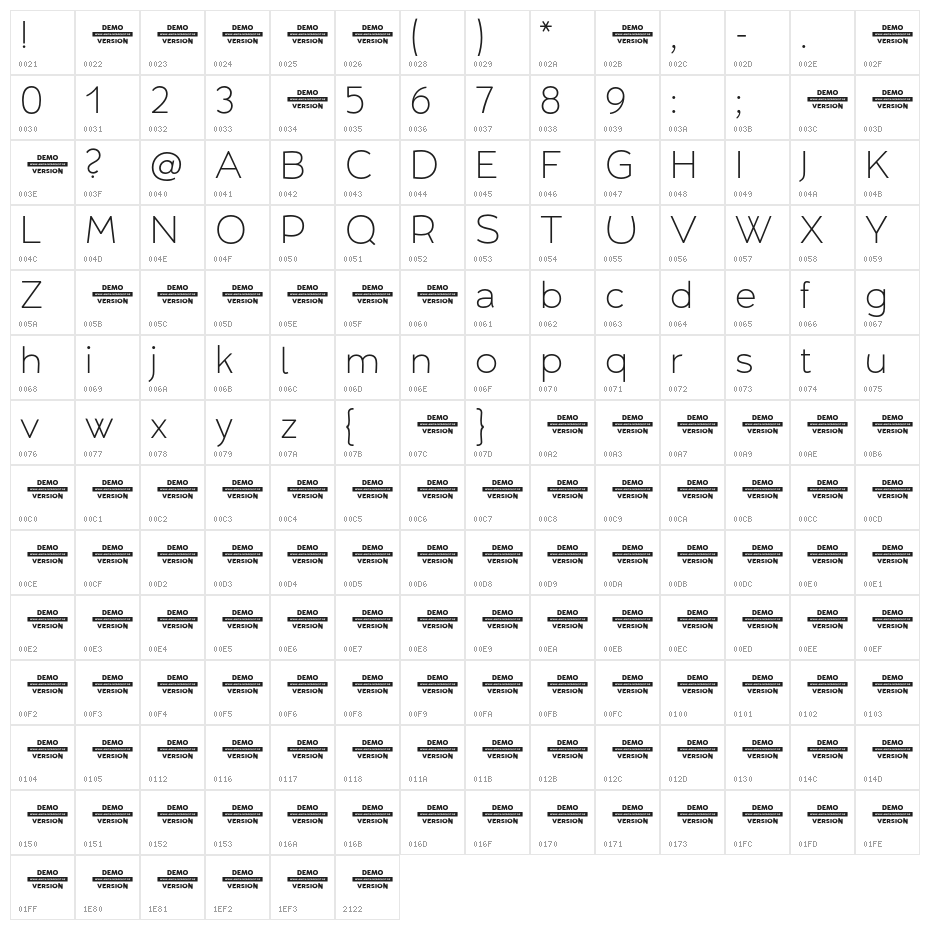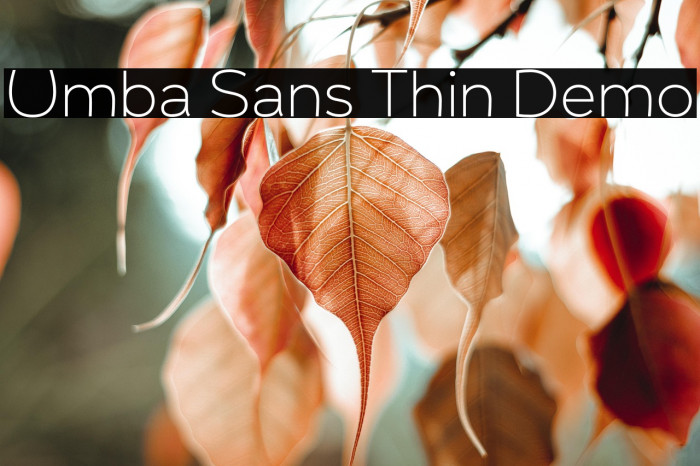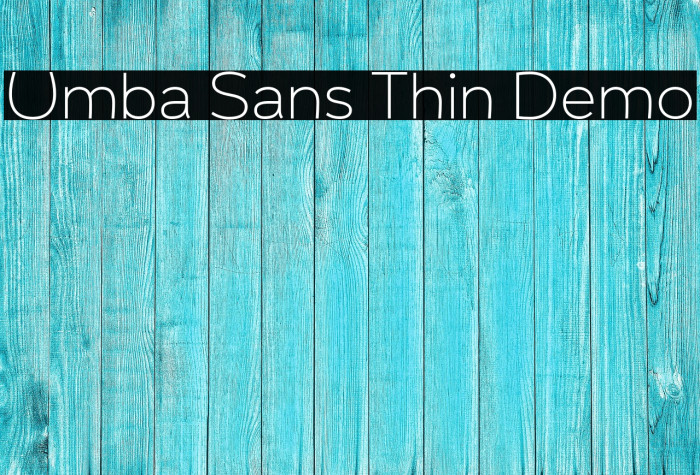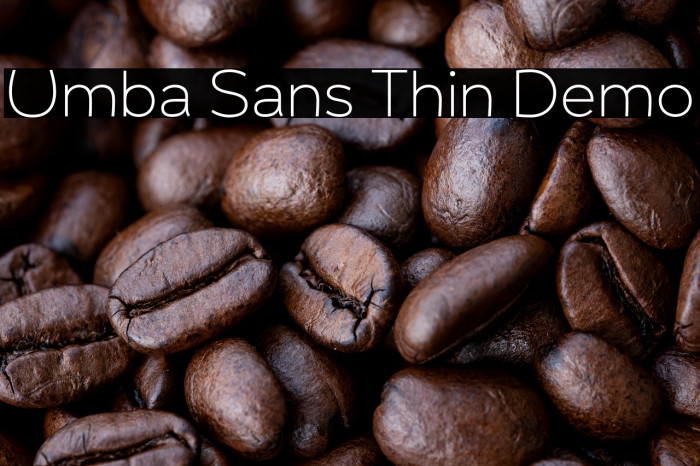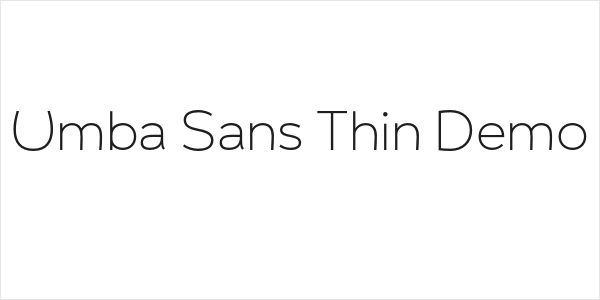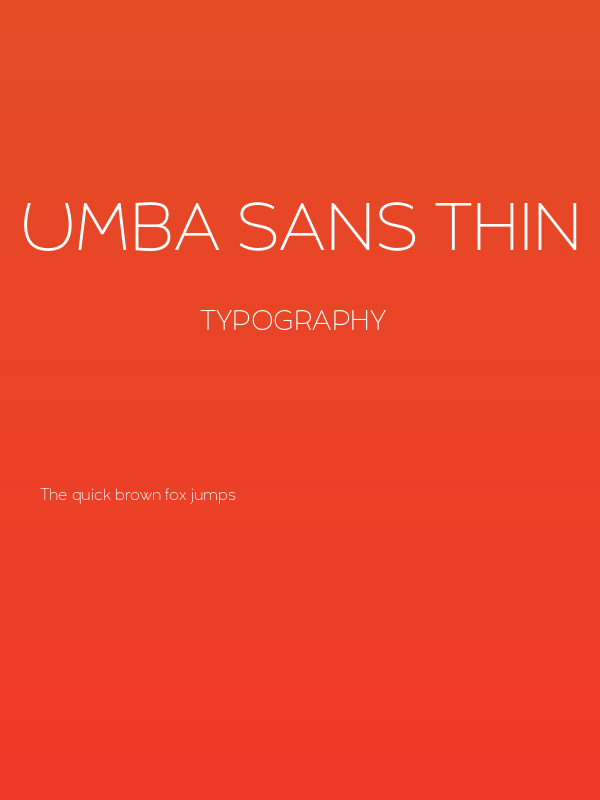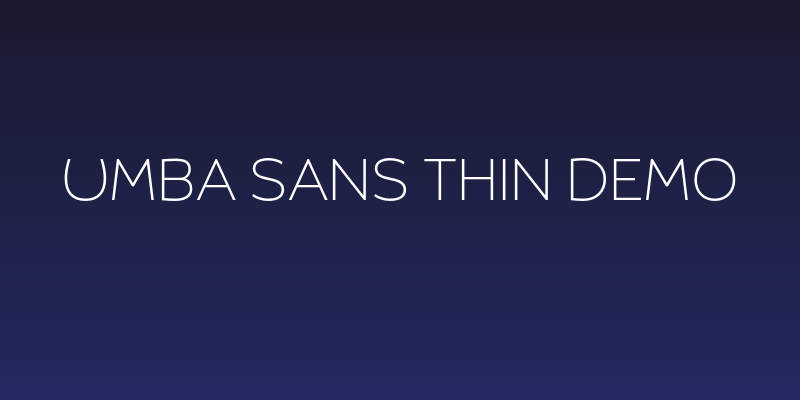
Umba Sans Thin Demo Font
Umba Sans Thin Demo Description
This font features a clean and minimalist design with thin, uniform strokes that convey a modern and elegant aesthetic. The characters are well-proportioned, with a consistent height and width that enhances readability. The uppercase and lowercase letters maintain a harmonious balance, while the numerals and special characters are designed to complement the overall style. The font's simplicity makes it versatile for various design applications, offering a sleek and professional appearance.